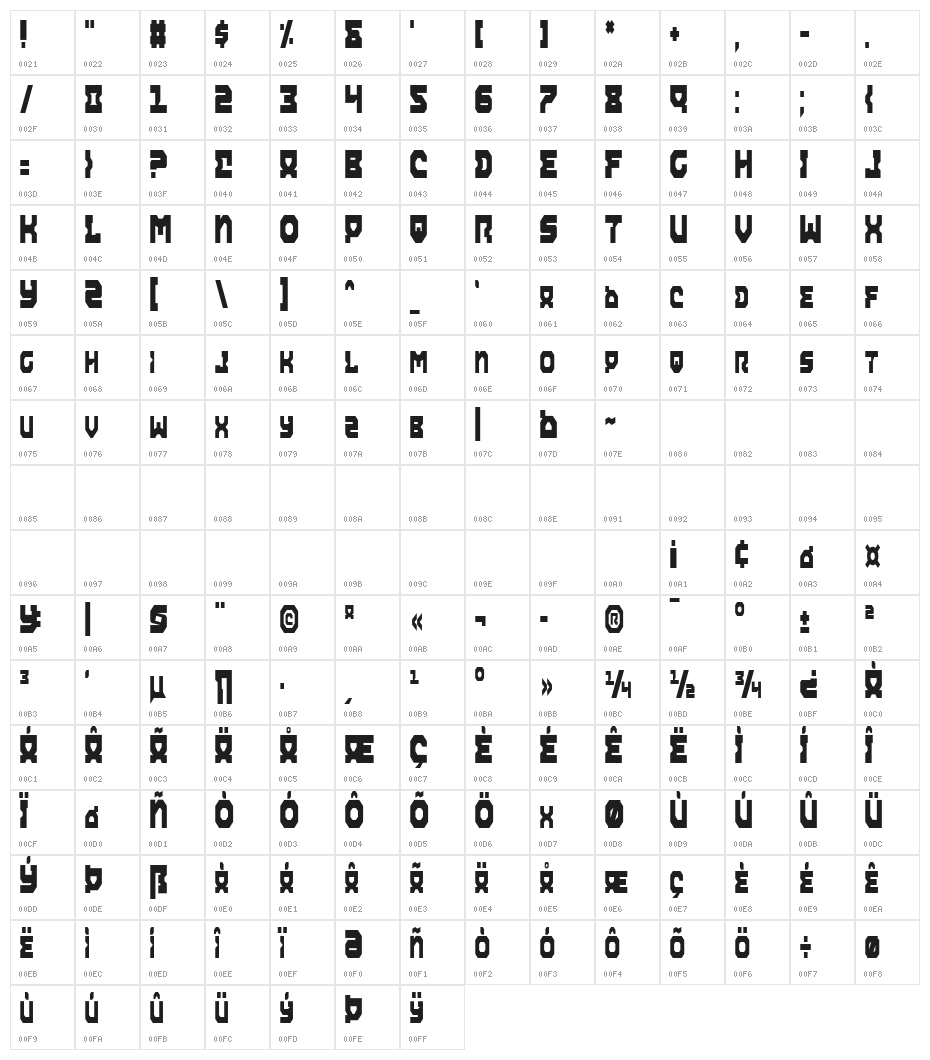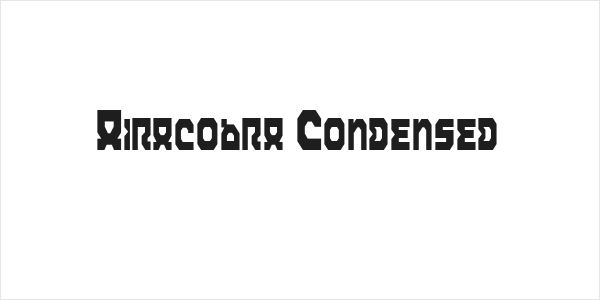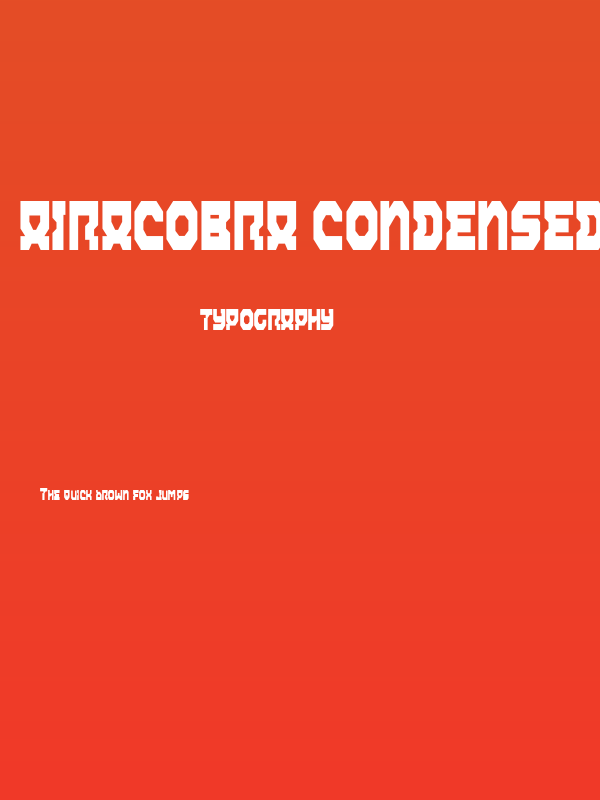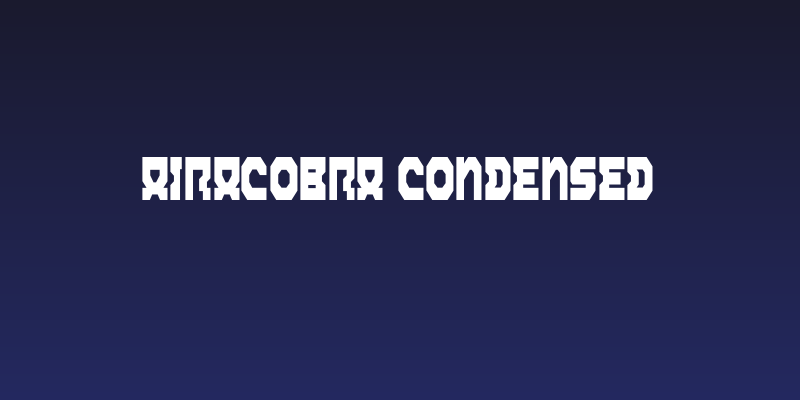
Airacobra Condensed Font
Airacobra Condensed Description
This font features a bold and geometric design with a condensed structure. The characters are constructed with sharp angles and straight lines, giving it a futuristic and industrial appearance. The uppercase and lowercase letters maintain a consistent style, with a strong emphasis on symmetry and uniformity. The numerals and special characters follow the same design principles, ensuring a cohesive look across all glyphs. The font's condensed width makes it suitable for space-saving applications while maintaining readability.
| Overall Style | Futuristic |
| Proposed Projects | Ideal for projects that require a modern and industrial aesthetic, such as technology branding, video game titles, and sci-fi movie posters. |